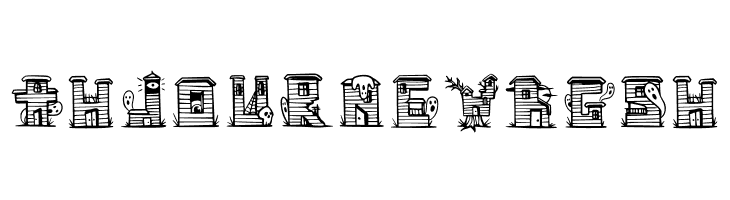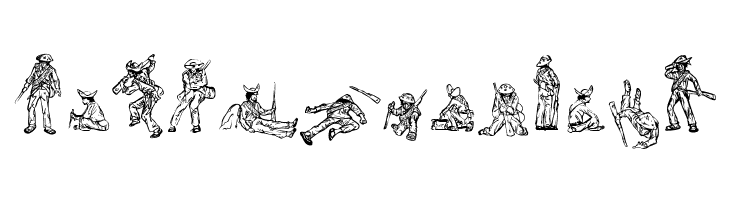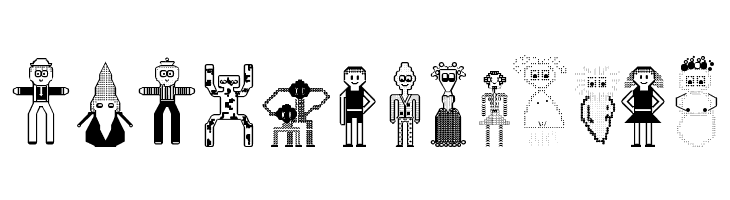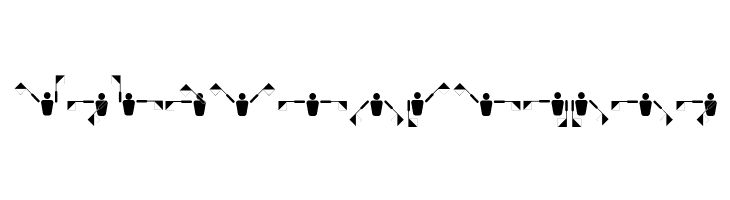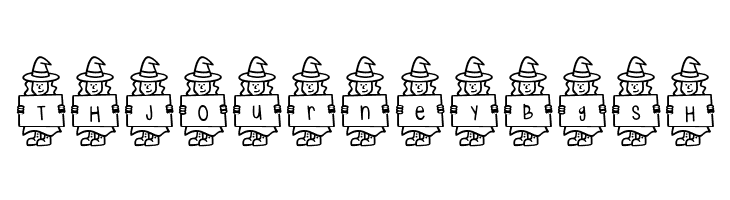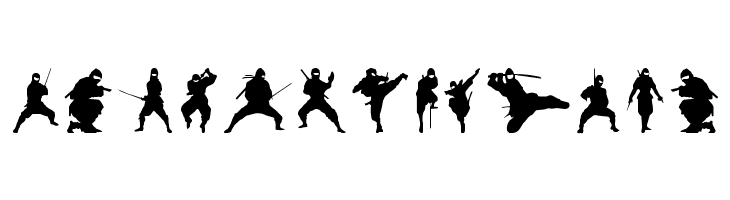
A whimsical font with letters held by cartoon mummies, perfect for spooky themes.
Explicit, playful dingbat font with erotic and adult-themed illustrations.
A decorative font with letters styled as haunted houses, perfect for spooky themes.
A decorative illustrated font featuring cangaceiro figures for each character.
The image features pixel art characters, not a traditional font.
A decorative font with intricate, culturally inspired illustrations replacing traditional letterforms.
A semaphore flag-inspired font with figures holding flags to represent characters.
A whimsical font with letters held by cartoon witches, perfect for magical themes.
A display font made of ninja silhouette figures in action poses.
A decorative font featuring characters from a popular animated series.